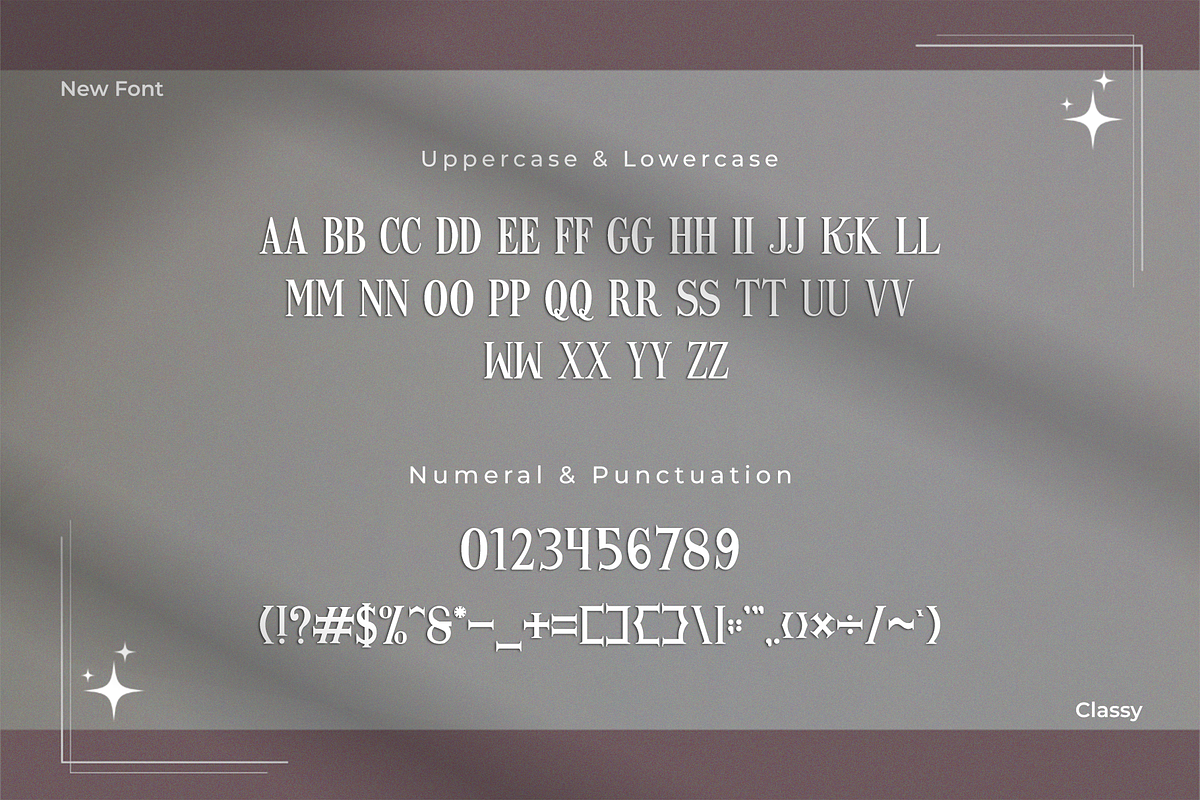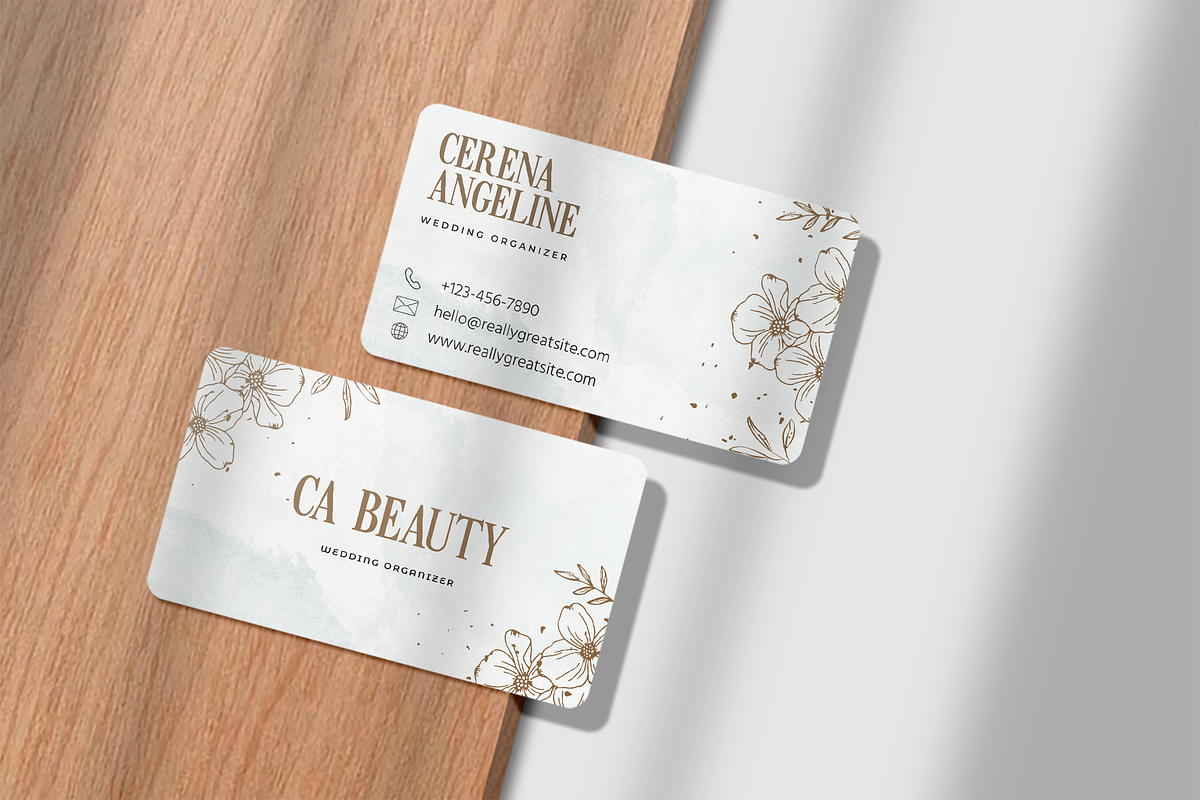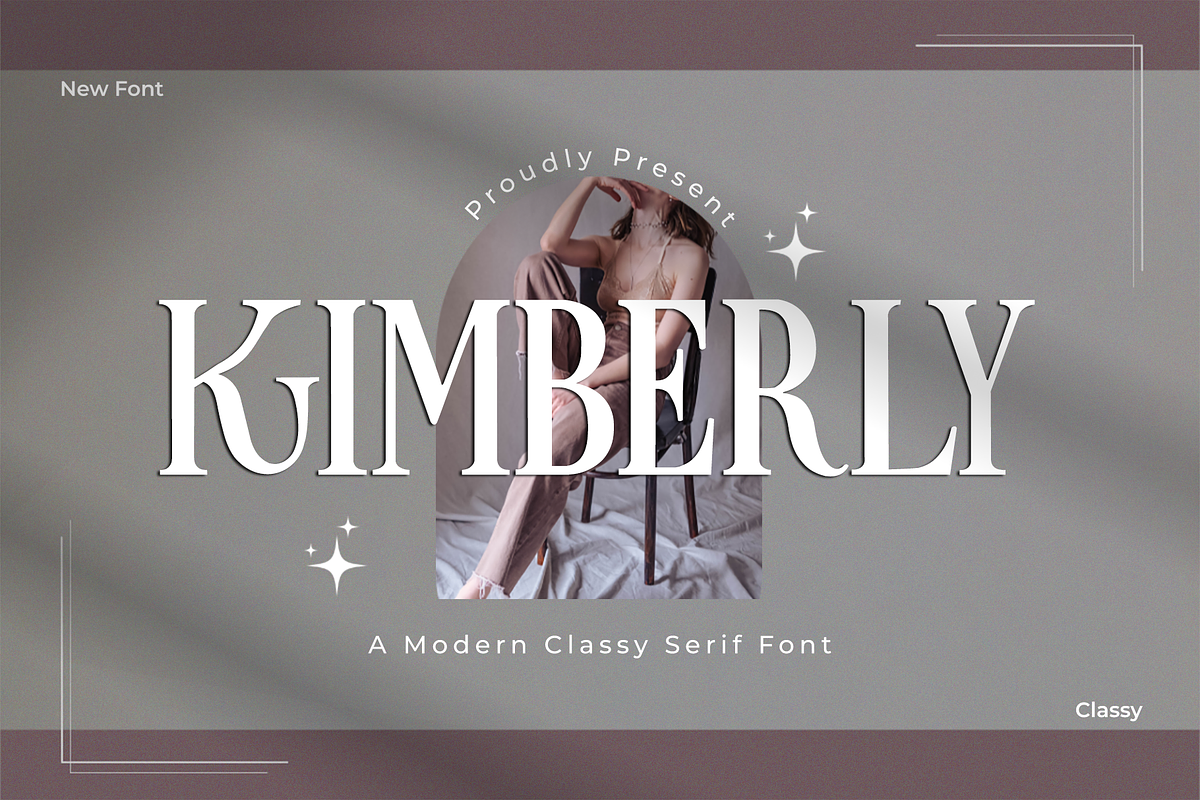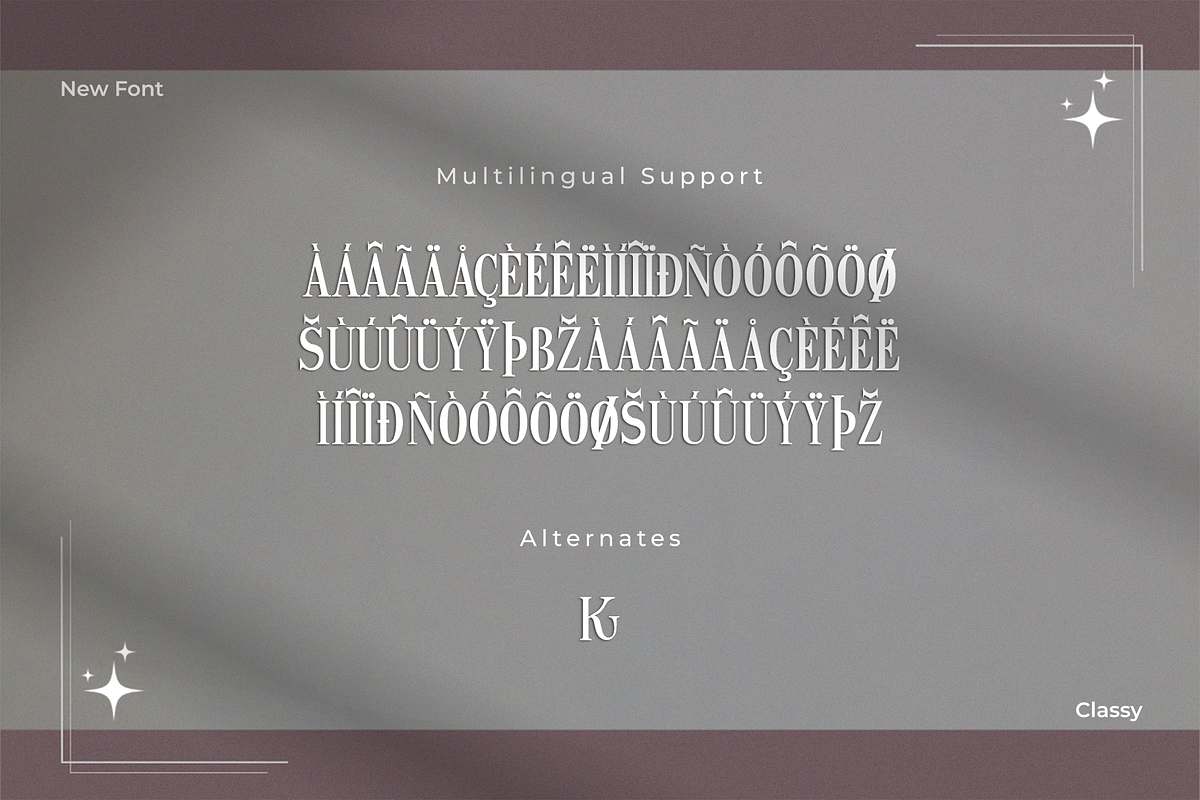
Kimberly - Modern Classy Serif Font
Introducing Kimberly, a modern serif font that blends timeless sophistication with a touch of contemporary flair. Perfect for designs that require a refined, high-end look, Kimberly features clean lines, balanced proportions, and elegant serifs that add a sense of luxury and class to your projects.
Whether you're designing logos, editorial layouts, websites, or upscale branding, Kimberly brings an air of professionalism and elegance to any piece. Its versatile character set ensures optimal readability and style, making it an ideal choice for both print and digital applications.
With a comprehensive character set including uppercase and lowercase letters, numerals, punctuation, and multilingual support, Kimberly offers flexibility for a wide range of creative needs. From premium invitations to sophisticated business branding, this font elevates your design with its modern yet classy appeal.
Kimberly is the perfect serif font for adding a touch of modern luxury to your designs.